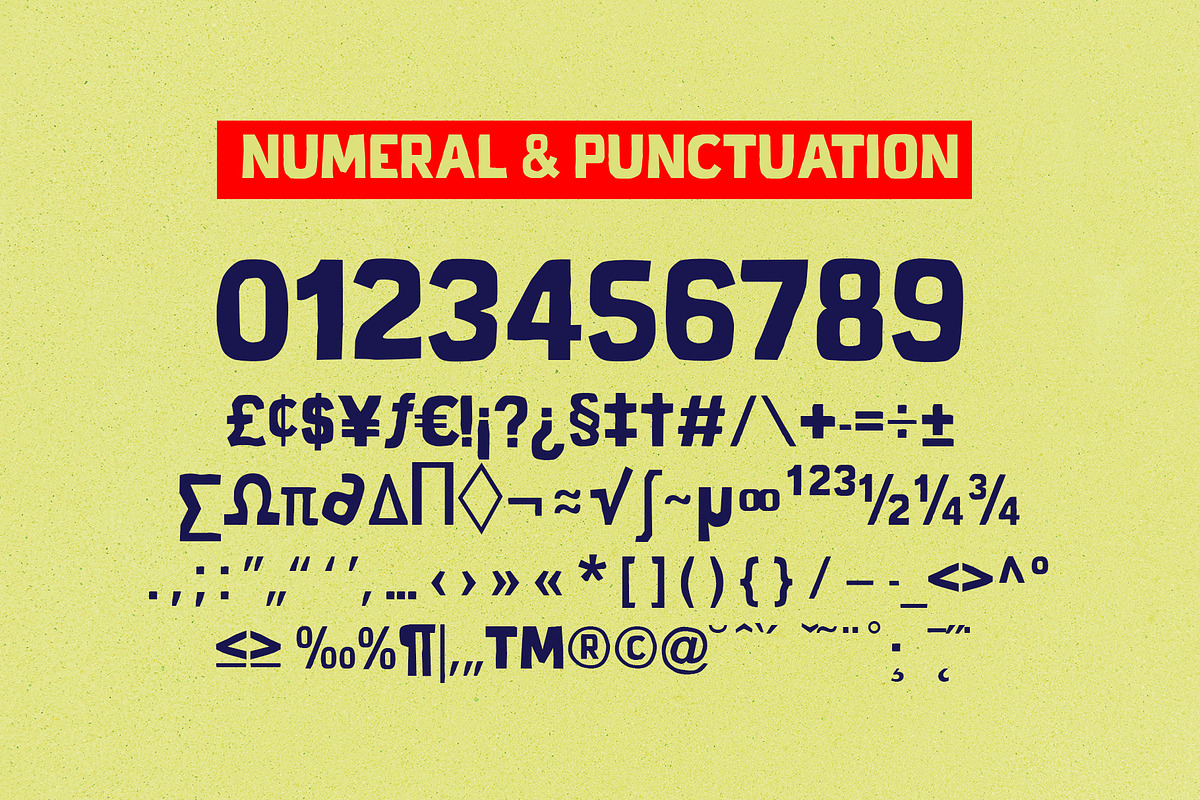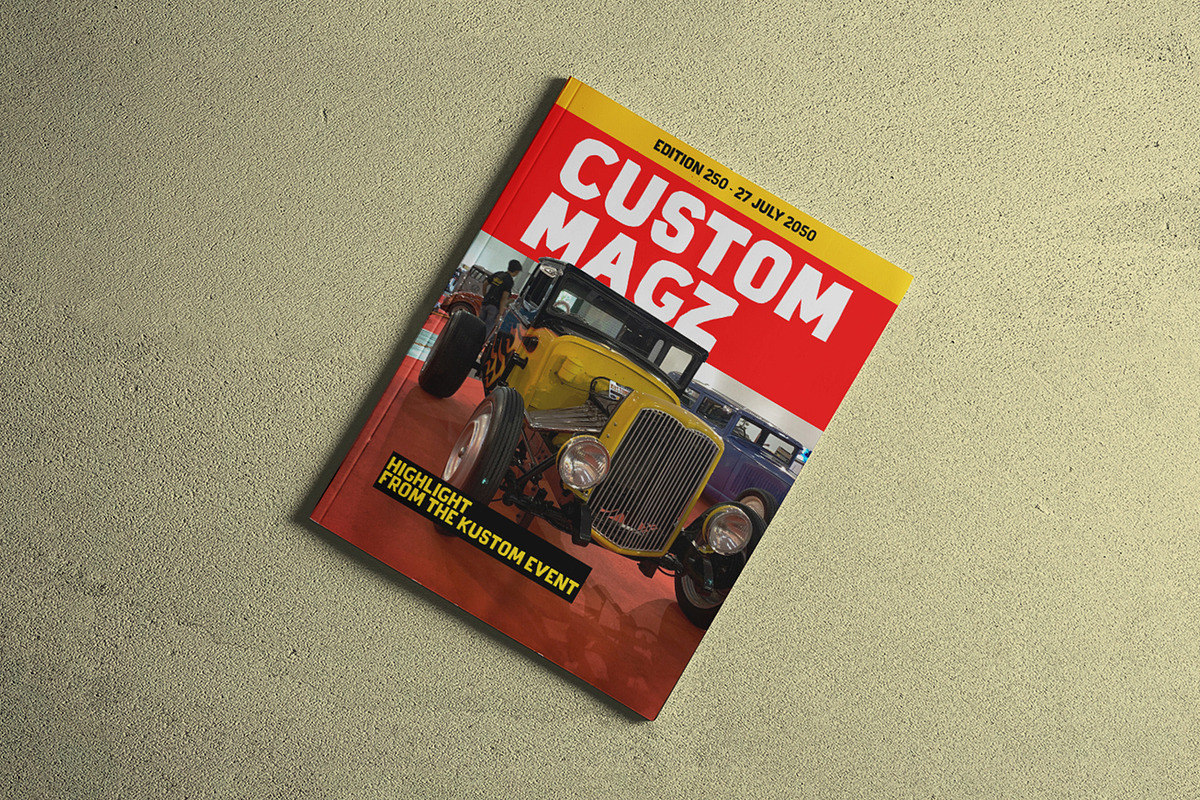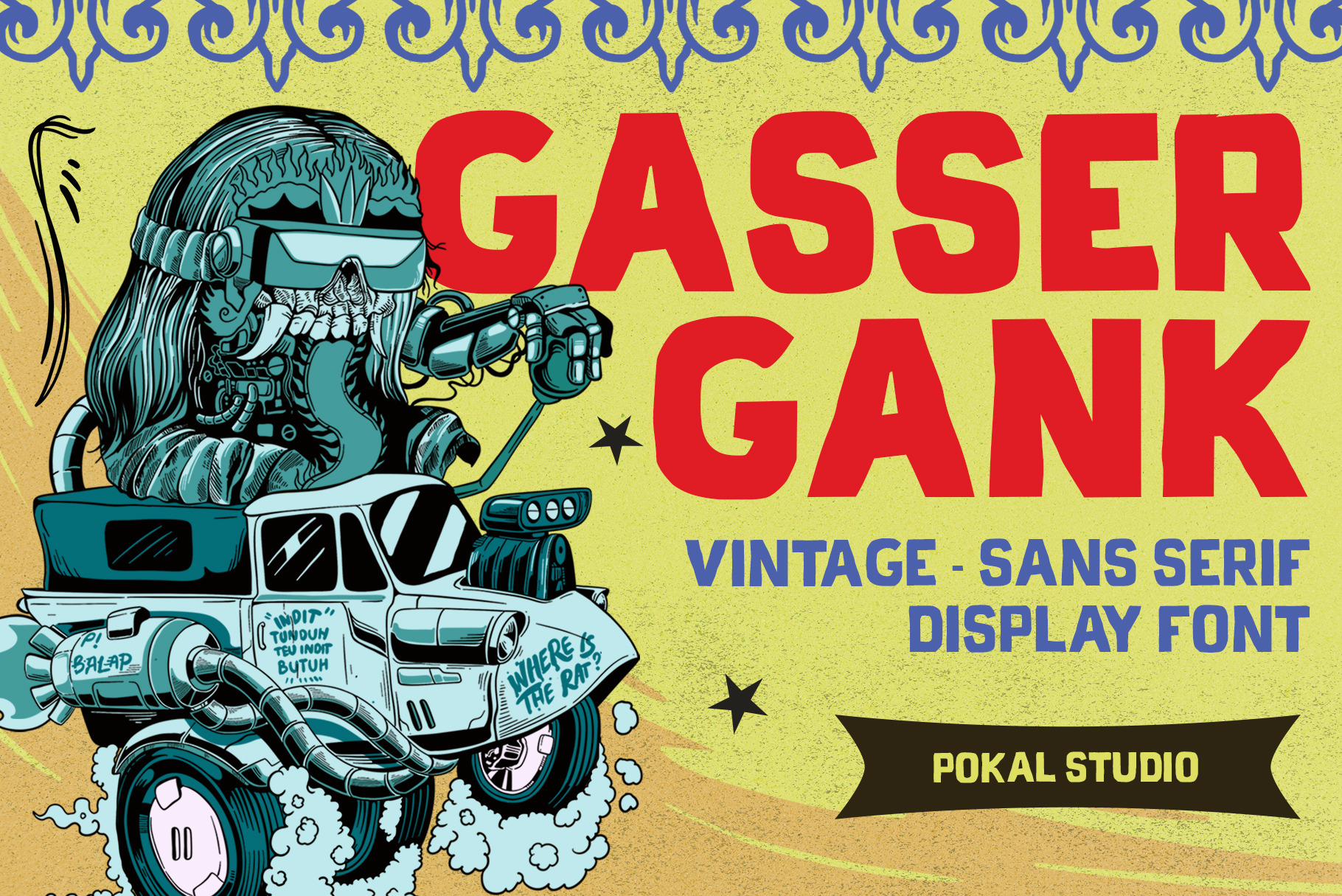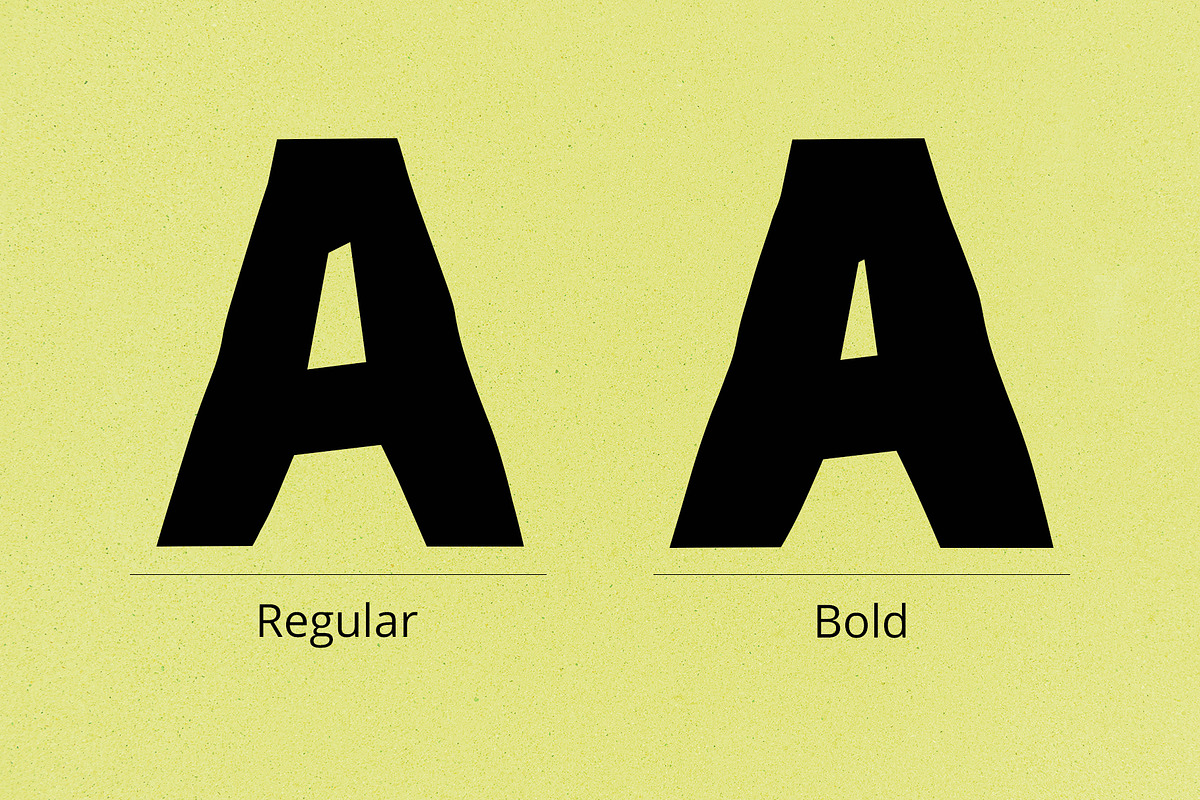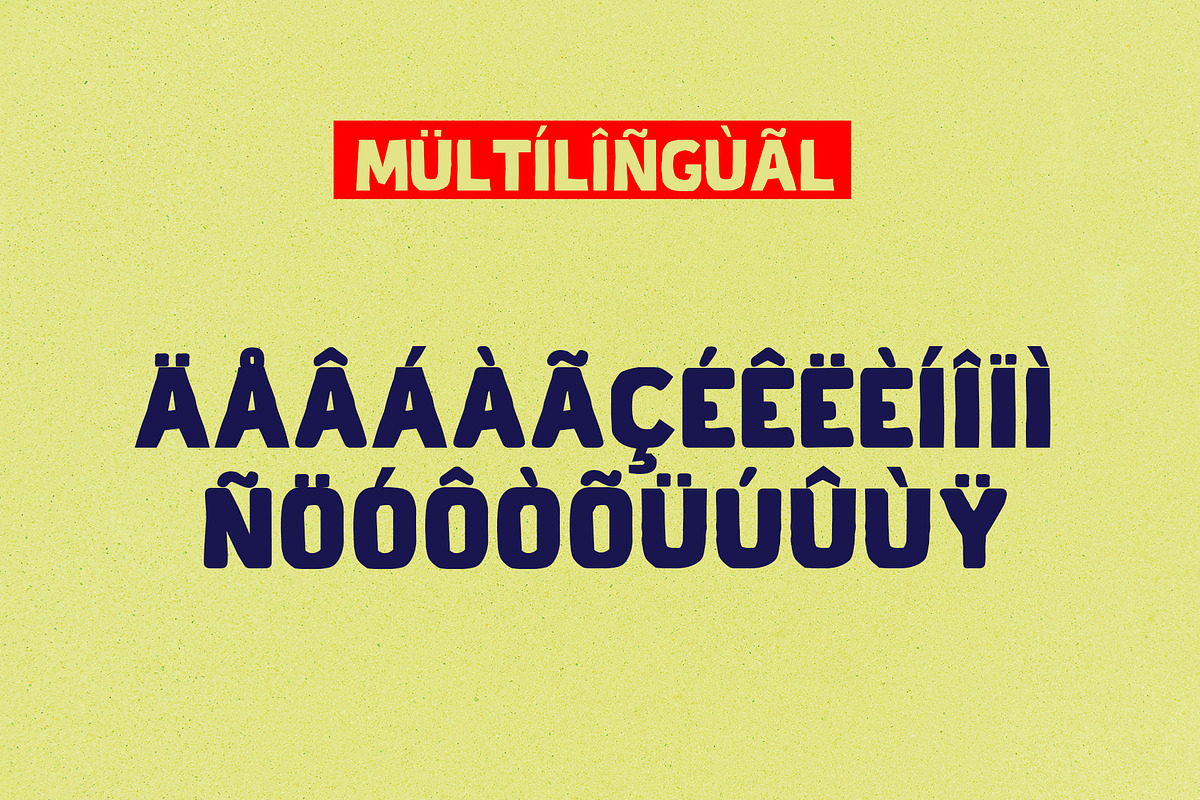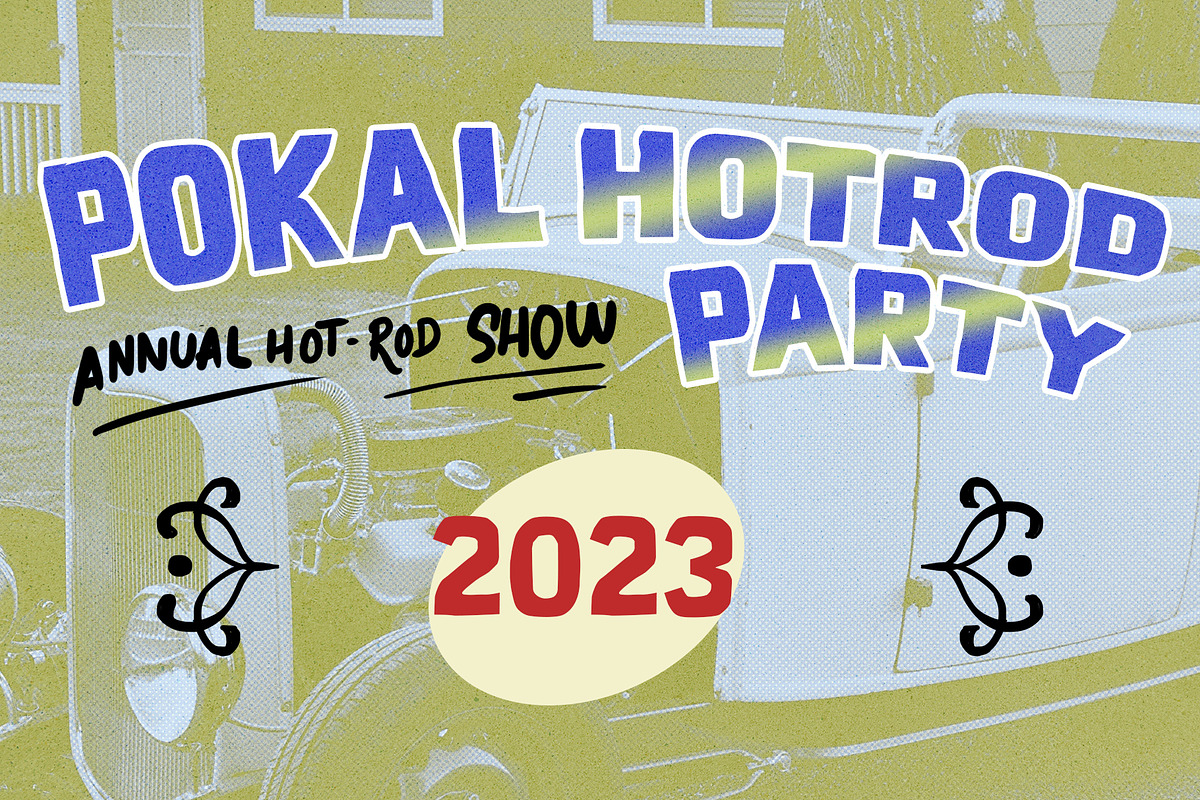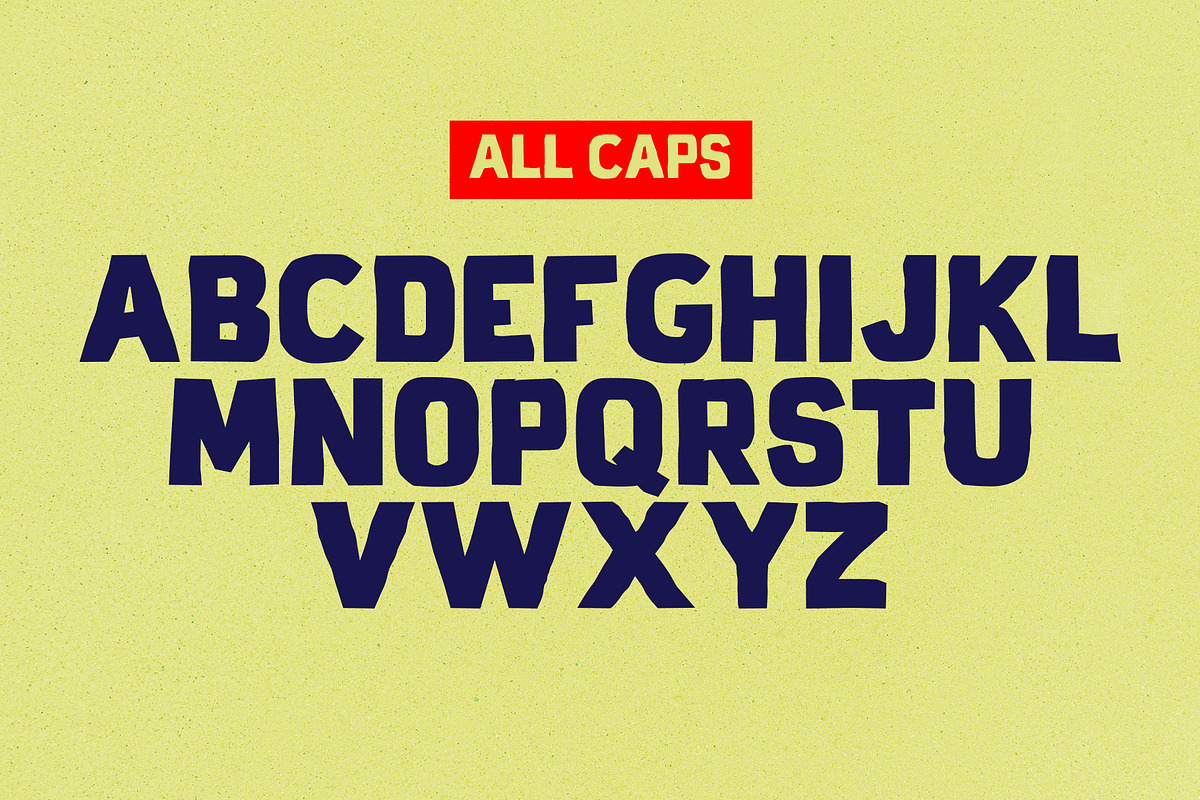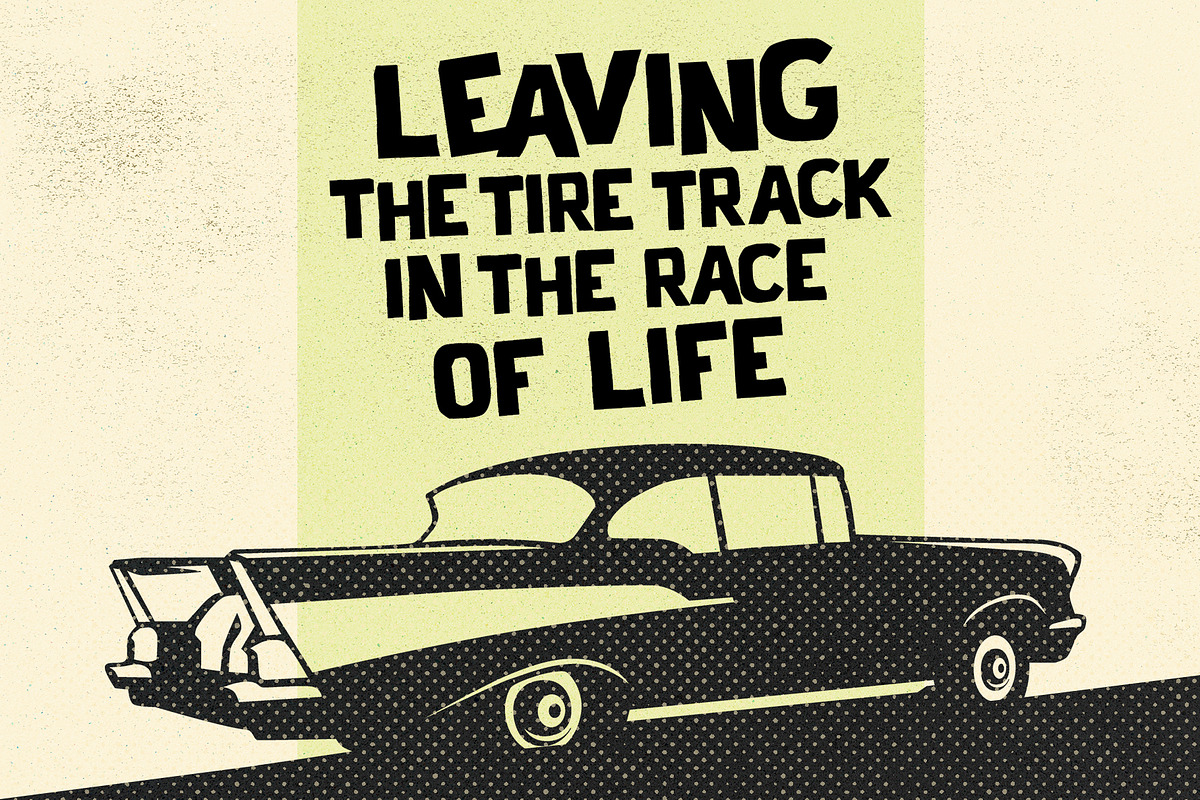
Gasser Gank Sans Serif Display Font
Introducing Gasser Gank – A Vintage Sans Serif Display Font
Unleash the roaring spirit of the open road and immerse yourself in the world of custom car enthusiasm, hot rod hobbies, kustom kulture, and the rebellious car culture with Gasser Gank – a vintage and edgy sans serif display font meticulously crafted for the revolutionaries in design.
Inspired by the adrenaline-fueled passion for automotive customization, Gasser Gank features a stunning array of OpenType Latin Pro glyphs, Gasser Gank ensures seamless compatibility across a wide range of applications such as magazine covers, headlines, poster, apparel, logotype, signage, and any other large use.